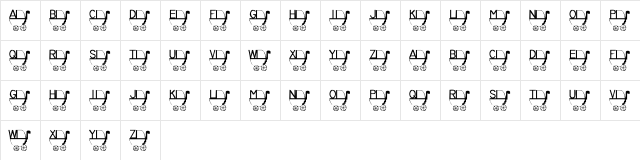
Rykers Pram Regular
Design Context for Rykers Pram Typeface
Rykers Pram is a composed and adaptable typeface that performs quietly and consistently across a wide range of design contexts.